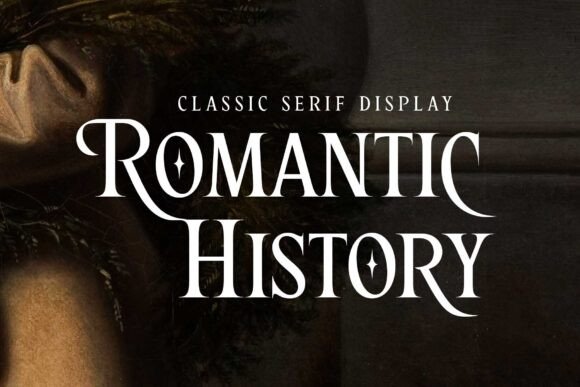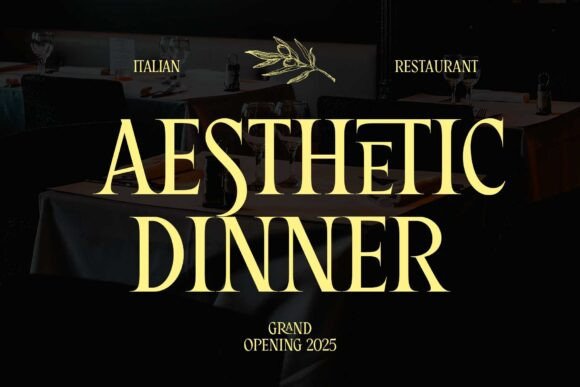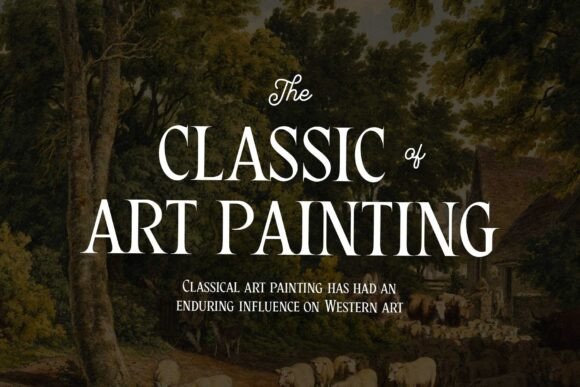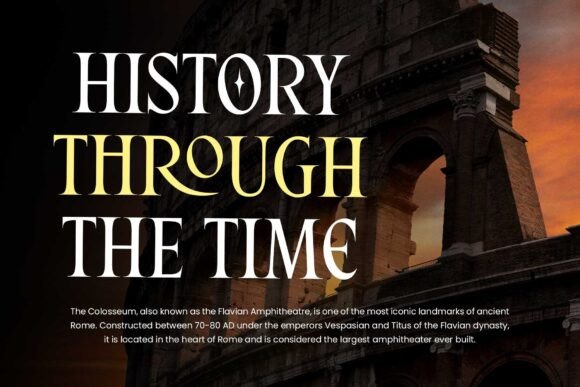
Romantic History Font
About the Romantic History Font
Experience the unique personality of Romantic History Font, a font designed for impact. Romantic History is a timeless font that draws inspiration from the Classical Roman style, originating in the Ancient Roman era between the 1st and 4th centuries AD. This handcrafted typeface showcases the beauty of traditional typography with its natural serif shapes and graceful curves, reminiscent of flat-pen calligraphy.
Designed to elevate your creative work, Romantic History comes with stylistic alternates, ligatures, and full multilingual support. It’s the perfect choice for titles, posters, books, magazines, branding, or any project that calls for an elegant and historical flair.
Romantic History Font Usage Examples
Romantic History Font Example